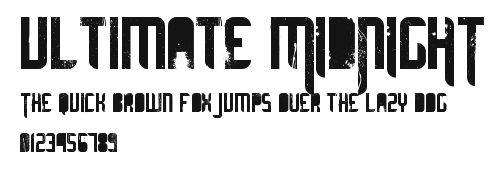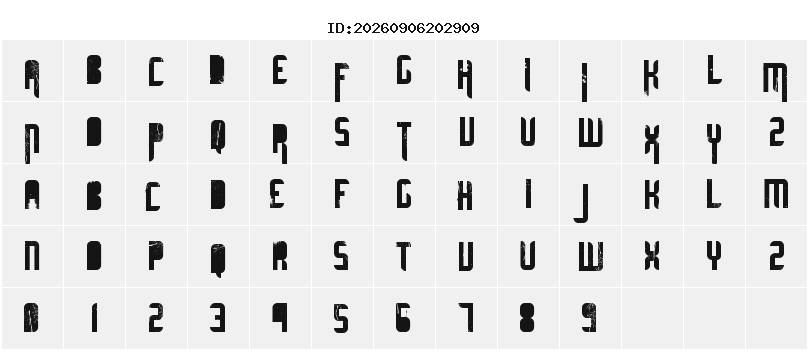
ultimate MIDNIGHT Preview
• Font Name: ultimate MIDNIGHT
• Full Font Name: ultimate MIDNIGHT
• Version: Version 1.00 March 21, 2008, initial release
About ultimate MIDNIGHT.ttf
ultimate MIDNIGHT.ttf is a modern, elegant sans-serif font designed for ultimate readability and visual harmony. Perfect for branding, headlines, web design, and print materials.